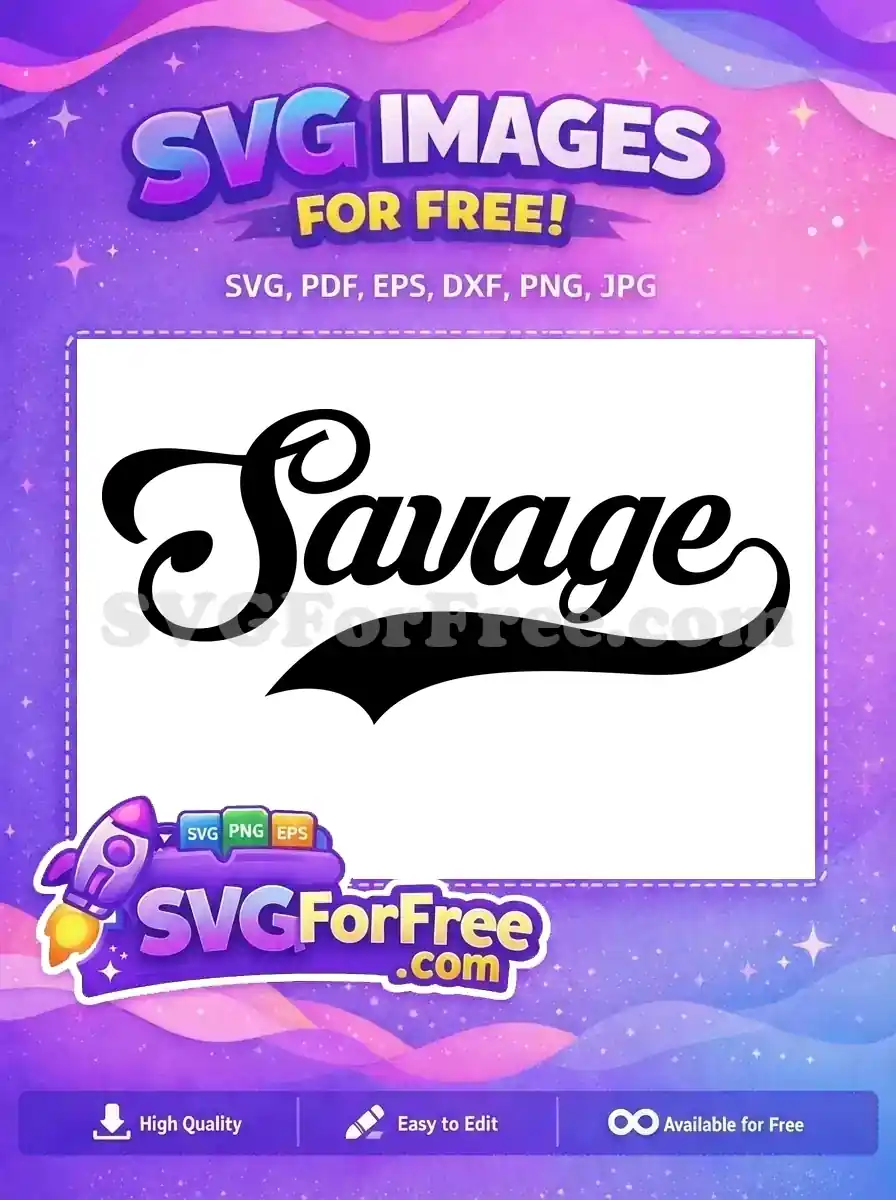
This free design features the word “Savage” in a stylish script font, perfect for bold statements. Download this free SVG and elevate your projects instantly.